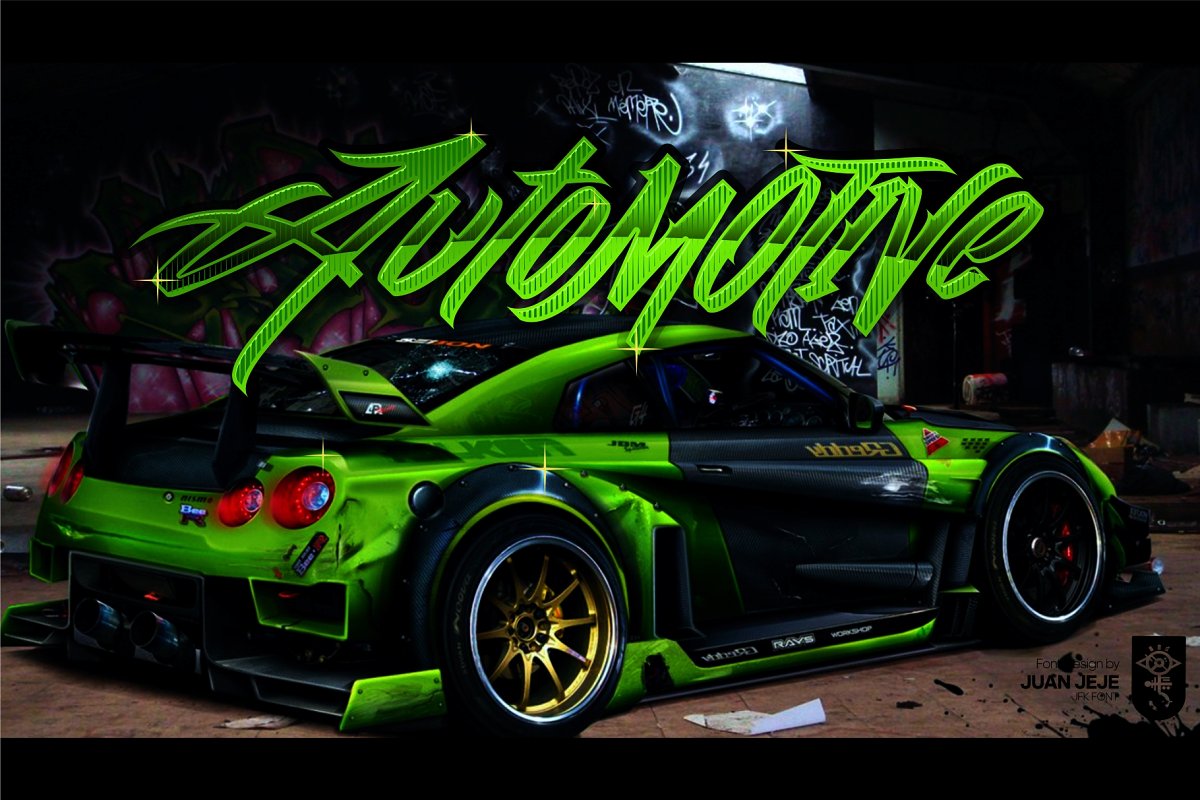
Wall Hunter Two is a new combination of Tagging Graffiti, still inspired by street artists around the world.
structure in fine curve with uppercase and lowercase have different degrees of size but still synchronized make some artistic font and good modification for the best part.